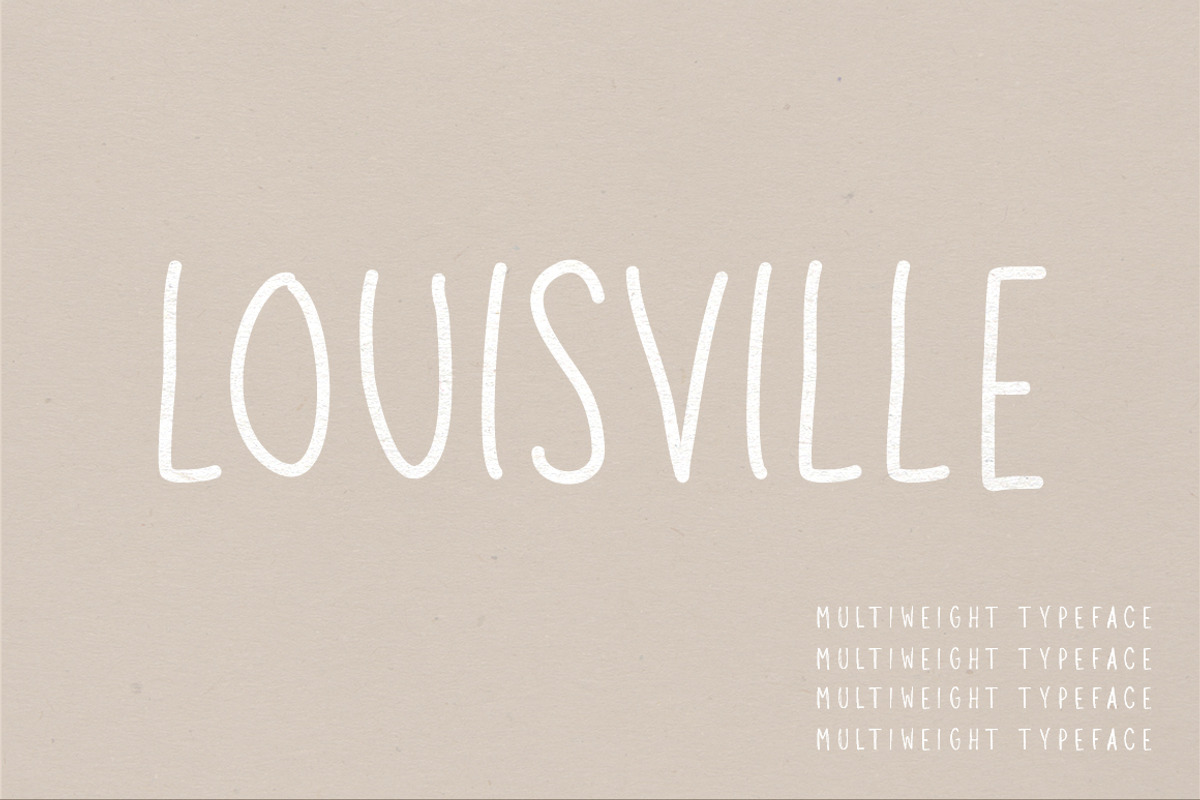
Louisville | A Multi-Weight Font
Louisville | A Multi-Weight Font by Jen Wagner Co is a font selected for branding, posters, packaging, typography.
- Includes Uppercase & Alternates via lowercase letters Numbers & Punctuation Non-English Characters & Symbols Two Weights Show More
- Alternate letters are available via the lowercase letters so consecutive letters can have great contrast.
Why Louisville | A Multi-Weight Font is worth a look
Louisville | A Multi-Weight Font by Jen Wagner Co fits naturally into Branding, posters, packaging, typography.